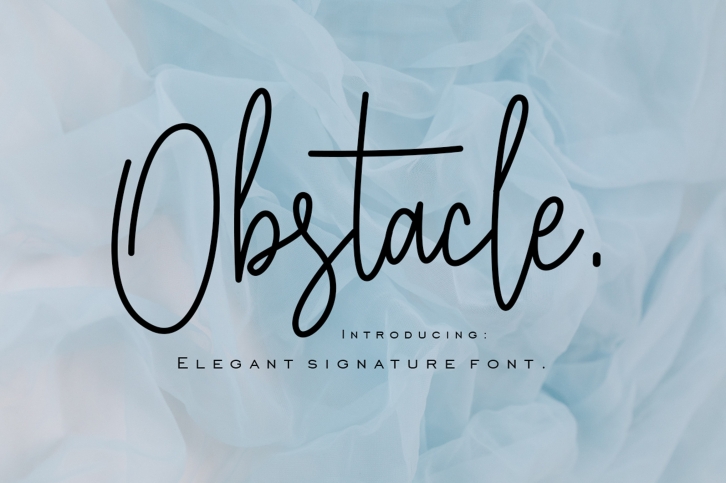
Obstacle is an elegant, modern and unique handwritten font. It looks stunning on wedding invitations, thank you cards, quotes, greeting cards, logos, business cards, and any other design that requires a touch of style.